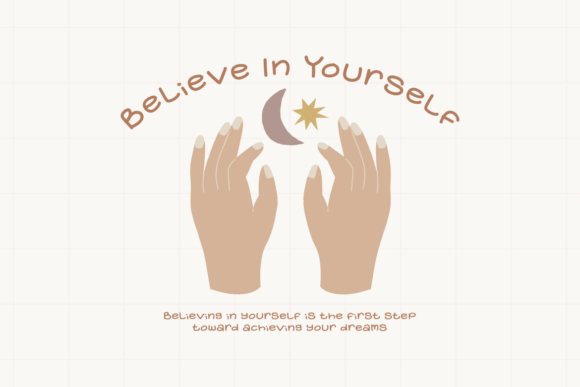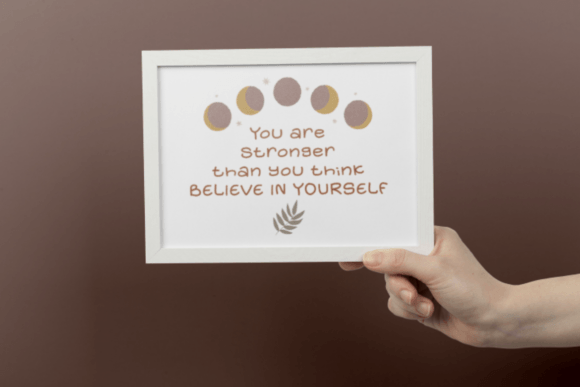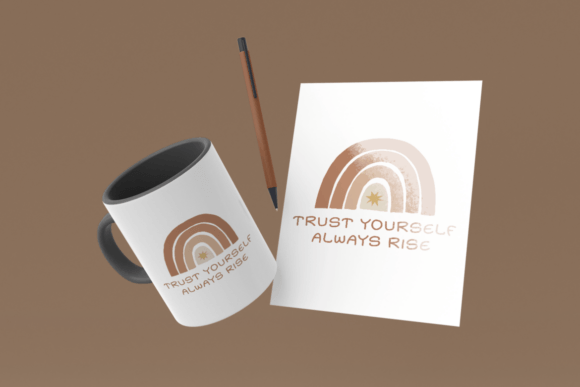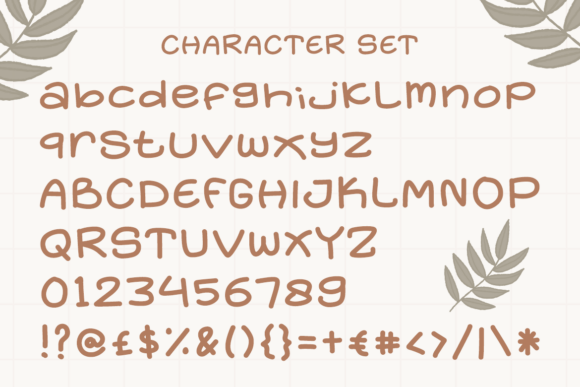
Introduction to Moonance Font
Have you ever stared at a blank page, feeling the weight of a blank slate staring back at you? That’s when the magic happens – a spark of creativity ignites, and you begin to see the world in a different light. For designers, this moment is a dream come true, and with the right tools, it can be a reality. That’s where Moonance Font comes in – a high-quality design resource that brings joy and whimsy to every word.
Crafted with care, Moonance Font is more than just a font – it’s a way to express yourself, to tell a story, and to connect with others on a deeper level. Its unique monoline strokes, hand-drawn warmth, and rough texture create a sense of authenticity that’s hard to find in other fonts. Whether you’re working on a creative project that requires a personal touch or need a design resource that stands out from the crowd, Moonance Font is the perfect choice.
Key Features of Moonance Font
- High-quality design resource suitable for creative projects with a unique, modern aesthetic.
- Perfect for use in logos, branding, and other design elements where a modern, elegant look is desired.
Honest Review: Moonance Font
The font itself is high quality, with a beautiful, elegant feel that’s perfect for romantic or whimsical themes. The designer has clearly put a lot of thought into the design, with a range of weights and styles to choose from.
- Unique and elegant design
- High quality and detailed
- Range of weights and styles
However, I did find a few limitations:
- Not suitable for bold or heavy text, as the design can get lost
- May not be the best choice for very small text sizes
Overall, I’m really impressed with the Moonance Font. It’s a great addition to any design resource library, and I can see it being used in a variety of creative projects. The only potential drawbacks are worth considering, but overall it’s a high-quality font that’s well worth checking out.
The Moonance Font is perfect for creative projects such as logos, business cards, and brochures. It’s also great for designing social media graphics, presentations, and documents that require a high-quality and unique font.